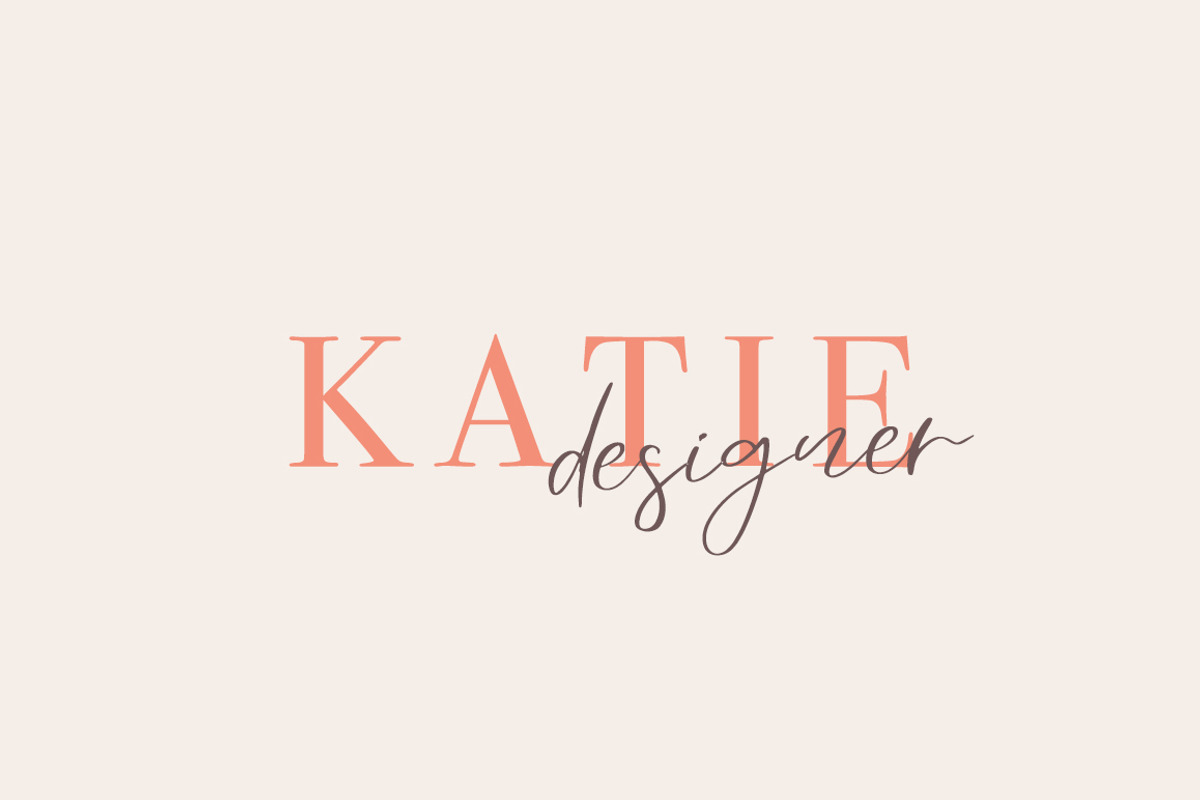
Hey Girls
Introducing Hey Girls Handwritten casual font
Hey Girls is modern font, every single letters have been carefully crafted to make your text looks beautiful. With modern script style this font will perfect for many different project ex: logo, photography, watermark, quotes, blog header, poster, wedding, branding, logo, fashion, apparel, letter, invitation, stationery, etc.